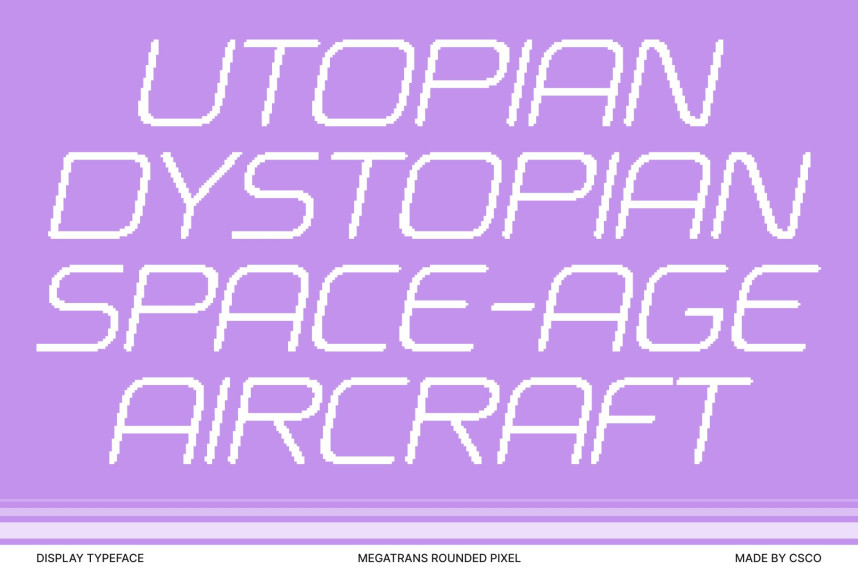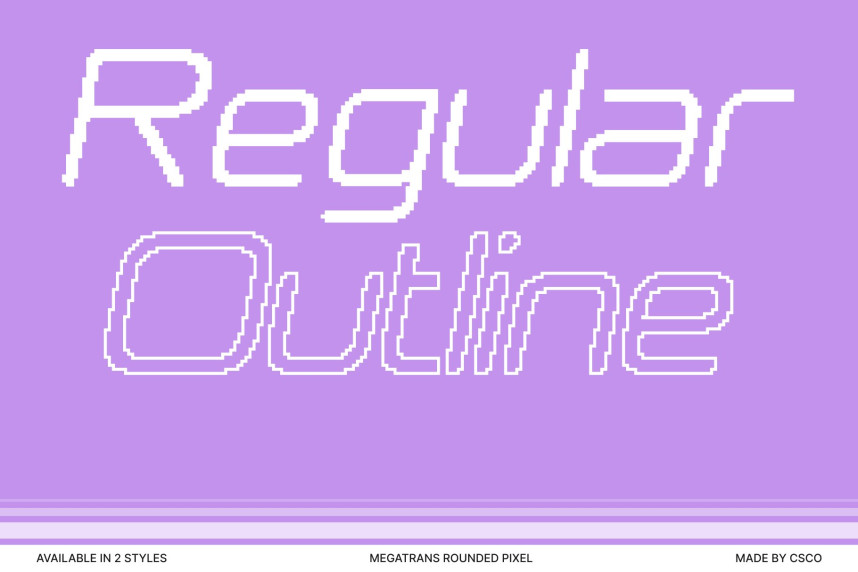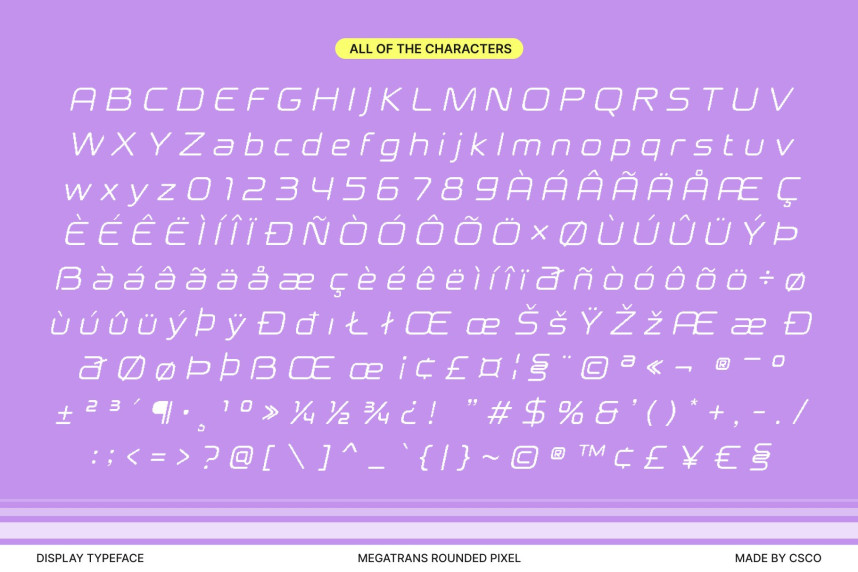
Megatrans Rounded Pixel Font
Megatrans Rounded Pixel Font – Futuristic Techno Sans Serif with Soft Pixel Precision A Modern Typeface Radiating Digital Energy. This is a sleek and contemporary sans serif font designed to capture the essence of the digital age. With its techno-inspired structure and rounded edges, the font delivers a smooth yet electrifying presence. Each character embodies modernity, precision, and motion—making it a standout choice for designers seeking a clean but futuristic aesthetic that instantly energizes any layout.